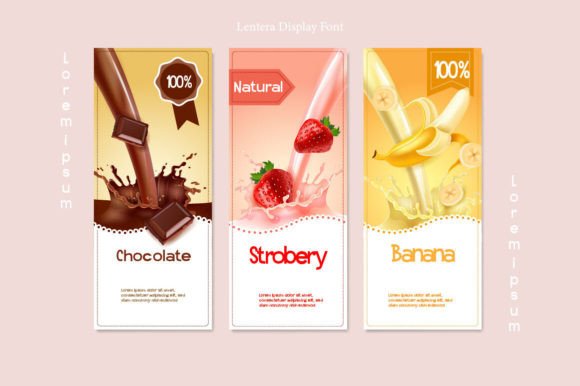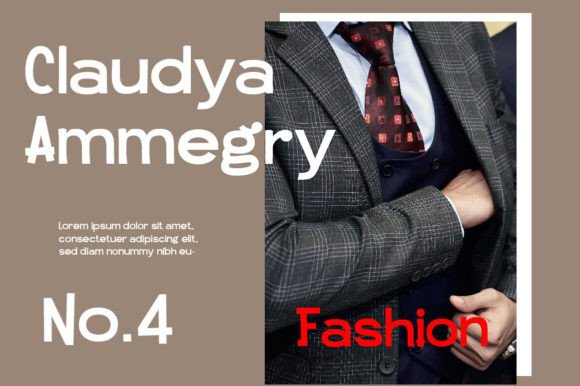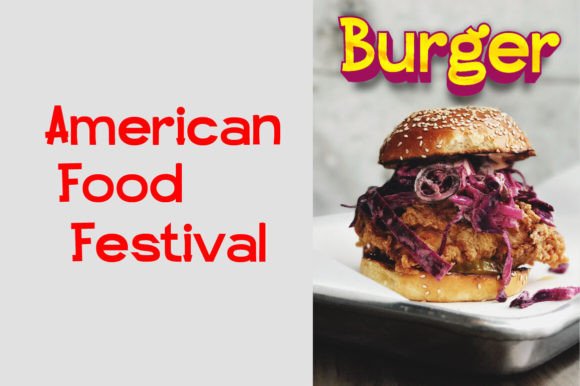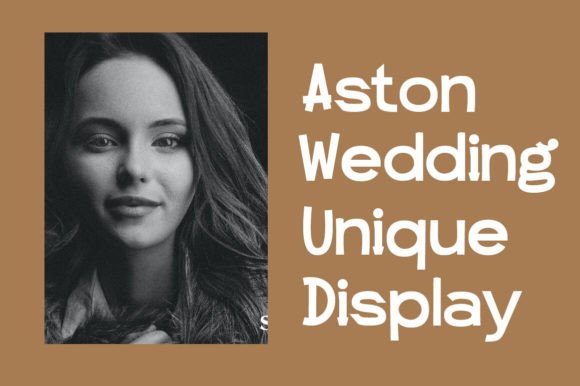
Introduction to Lentera Font
That’s where Lentera Font comes in – a stunning display font that’s perfect for designers looking to add a touch of magic to their next project. Whether you’re designing t-shirts, mugs, SVGs, or retro prints, this high-quality font is sure to impress. And the best part? It’s available for a free download, making it an invaluable resource for designers of all levels.
Lentera Font
- High-quality, unique design for creative projects, perfect for adding a touch of elegance and sophistication.
- Includes a range of font styles and weights, making it a versatile design resource for various creative applications.
- Available in 8 different font styles, each with its own unique characteristics and flair.
- Designed to be highly legible, even at small font sizes, making it perfect for use in a variety of contexts, from print to digital media.
Honest Review: Lentera Font
I recently came across the Lentera Font, and I must say it’s a great addition to any designer’s toolkit. This free download is perfect for creative projects that require a touch of elegance and sophistication.
- ✨ High-quality design: The Lentera Font is designed with precision and attention to detail, making it suitable for a wide range of applications.
- ✨ Transparent background: The font’s transparent background allows for seamless integration with various design elements, giving you more creative freedom.
- ✨ Versatile: The Lentera Font is available in various styles and weights, making it an excellent choice for designers working on diverse projects.
- ⚠️ Limited customization options: While the font is highly customizable, some users may find the available options to be somewhat limited.
- ⚠️ Not ideal for bold text: The Lentera Font’s delicate design may not be the best choice for projects that require bold, attention-grabbing text.
Overall, I’m impressed with the Lentera Font’s design quality and versatility. While it may have some limitations, it’s an excellent resource for designers looking for a high-quality, free font to enhance their creative projects.
Getting the Most Out of Lentera Font
To get the most out of Lentera Font, use it in conjunction with a transparent background to create visually appealing designs. This font is ideal for creative projects that require a high-quality, elegant look. Experiment with different font sizes, colors, and styles to create unique designs.
Lentera Font is commonly used for wedding invitations, business cards, and other design projects that require a sophisticated look. Its high-quality design makes it an excellent choice for designers looking for a free download that can elevate their creative project.
Is the Lentera Font suitable for large-scale designs?
Yes, the Lentera Font is designed to be highly legible and scalable, making it an excellent choice for large-scale designs, such as billboards, posters, or even signage. Its high quality and crisp typography ensure that the font remains clear and readable, even at larger sizes.